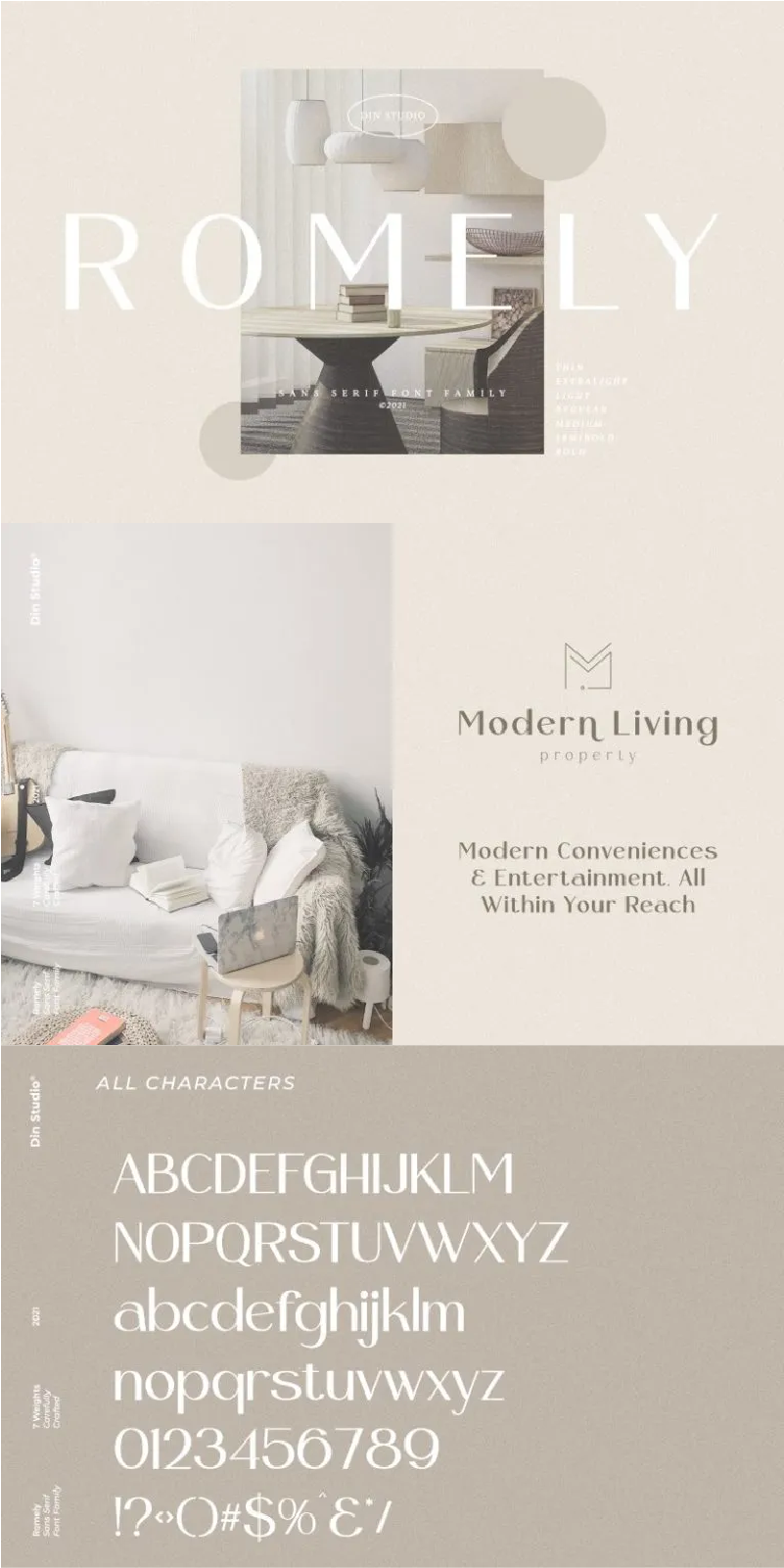
Romely Font
About Romely
Introducing Romely – A Sans Serif Font Family
If we can give you many options then why not? With this package you will get many font to create more engaging content and inspire your audience and clients. Connect with your audience and stand out in the crowd as these fonts will show you that you and your works deserve their attention. Show your boldness as you make the world see of the elegant details put together in your projects! Use Romely font family to make your headings stand out, enhance your logos, style up your business cards, elevate your website and social media, and bring class, style, history across all your channels, and many more!
Romely font family includes Multilingual Support to make your branding reach a global audience.
Inspire your audience, clients, or guests with this beautiful, statement font. See the previews above to get some inspiration on how you can use them
- Romely Thin
- Romely Extra Light
- Romely Light
- Romely Regular
- Romely Medium
- Romely Semi Bold
- Romely Bold
- Numerals and Punctuation